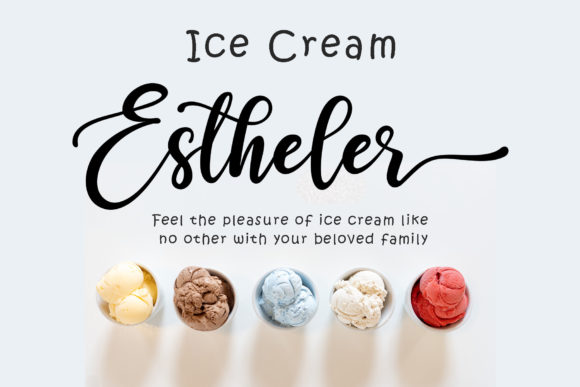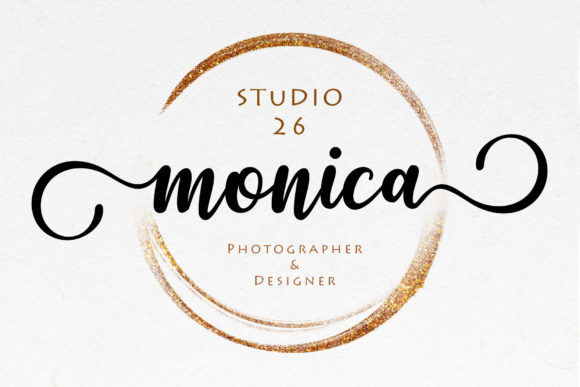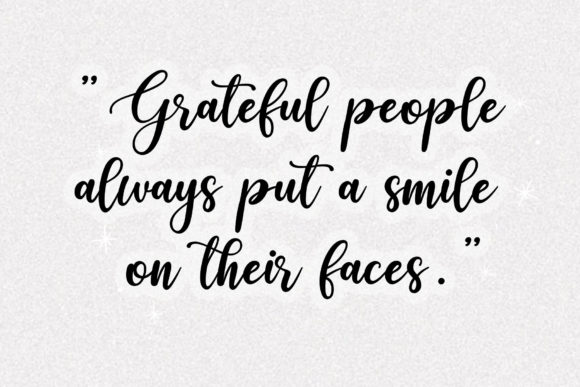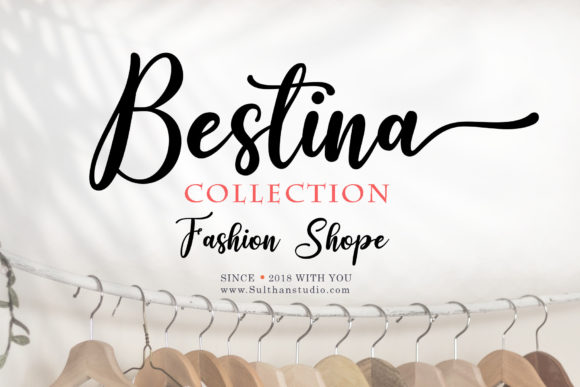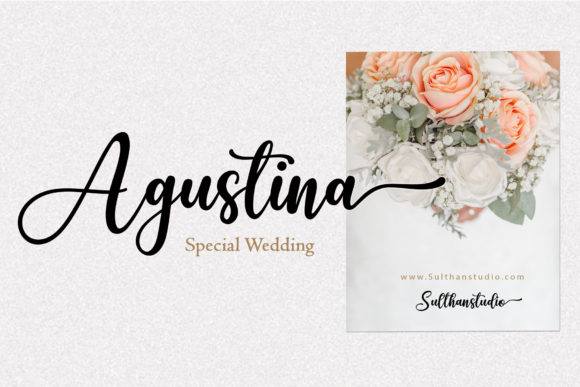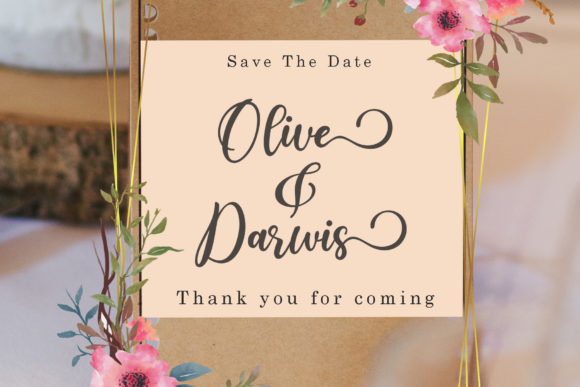
Introducing Calista Font: Elevate Your Designs with Elegant Handwritten Style
In the world of typography, fonts play a crucial role in conveying messages, expressing emotions, and creating a lasting impression. For designers, crafters, and creative enthusiasts, finding the perfect font can be a daunting task. However, if you’re looking for a font that exudes elegance, sophistication, and a touch of whimsy, look no further than Calista Font. In this article, we’ll explore the features, benefits, and uses of Calista Script, a superb handwritten font that will take your designs to the next level.
What is Calista Font?
Calista Script is a beautiful, handwritten font that boasts elegant and curvy lines, making it perfect for a wide range of design applications. Its unique and distinctive style sets it apart from other fonts, allowing designers to add a personal touch to their work. Whether you’re working on product packaging, branding projects, magazine covers, social media graphics, or wedding designs, Calista Font is an excellent choice.
Key Features of Calista Font
- Elegant and Curvy Lines: Calista Script features flowing, connected letters that create a sense of movement and fluidity, adding a touch of sophistication to your designs.
- Handwritten Style: The font’s handwritten style gives it a personal and unique feel, making it perfect for designs that require a human touch.
- Versatile: Calista Font can be used for a wide range of design applications, from product packaging to social media graphics.
- Easy to Read: Despite its elegant and curvy lines, Calista Script is easy to read, making it perfect for body text and headlines.
Uses of Calista Font
Calista Script is a versatile font that can be used in various design applications, including:
- Product Packaging: Add a touch of elegance to your product packaging with Calista Font, making your brand stand out on store shelves.
- Branding Projects: Use Calista Script to create a unique and memorable brand identity that reflects your company’s values and personality.
- Magazine Covers: Create eye-catching magazine covers with Calista Font, drawing readers in with its elegant and sophisticated style.
- Social Media Graphics: Elevate your social media graphics with Calista Script, making your posts and stories stand out in a crowded feed.
- Wedding Designs: Use Calista Font to create beautiful wedding stationery, including invitations, save-the-dates, and thank-you cards.
Tips for Using Calista Font
To get the most out of Calista Script, here are some tips to keep in mind:
- Pair with Other Fonts: Experiment with pairing Calista Font with other fonts to create a unique and visually appealing combination.
- Use for Headlines and Body Text: Use Calista Script for both headlines and body text to create a cohesive and elegant look.
- Adjust Font Size and Color: Experiment with different font sizes and colors to create visual interest and hierarchy in your designs.
In conclusion, Calista Font is a superb handwritten font that offers a unique and elegant style, perfect for designers, crafters, and creative enthusiasts. Its versatility, readability, and beautiful lines make it an excellent choice for a wide range of design applications. Whether you’re working on product packaging, branding projects, magazine covers, social media graphics, or wedding designs, Calista Script is sure to elevate your work and make it stand out. So why wait? Give Calista Font a try today and experience the power of elegant typography!